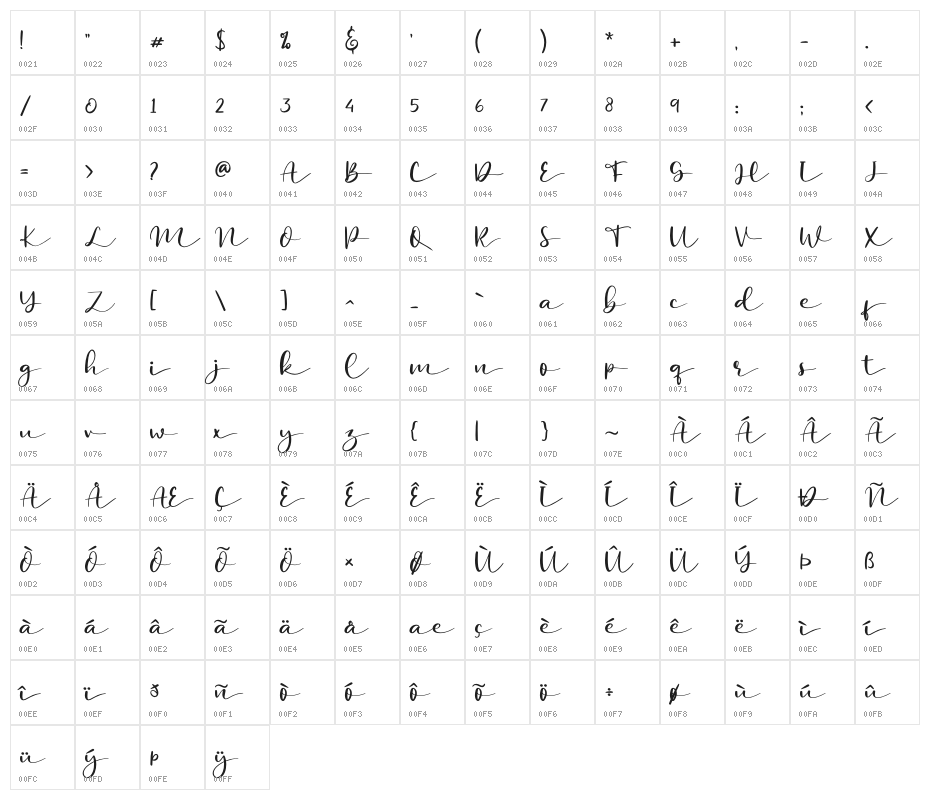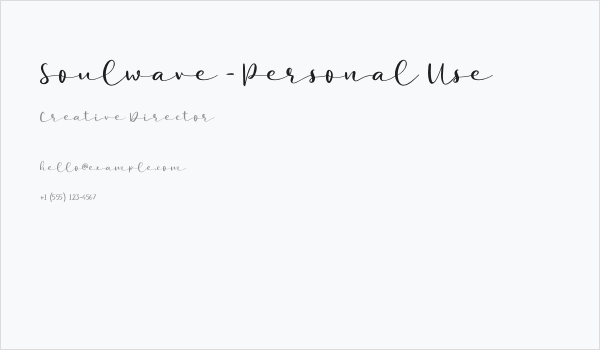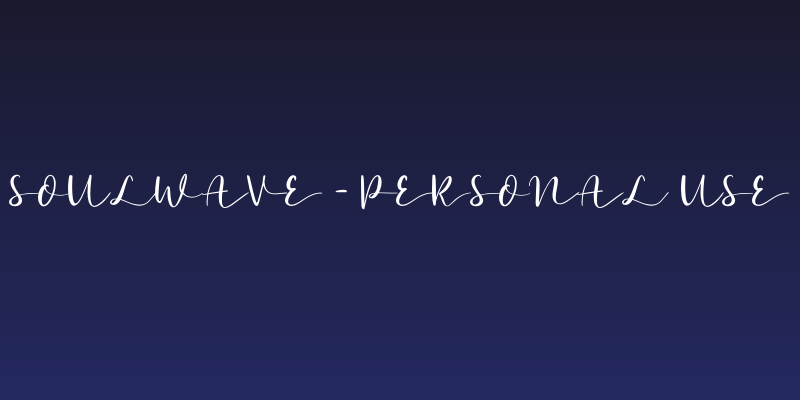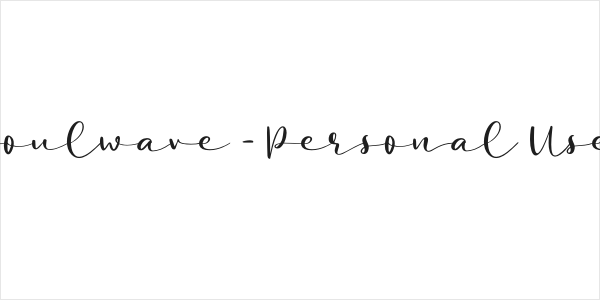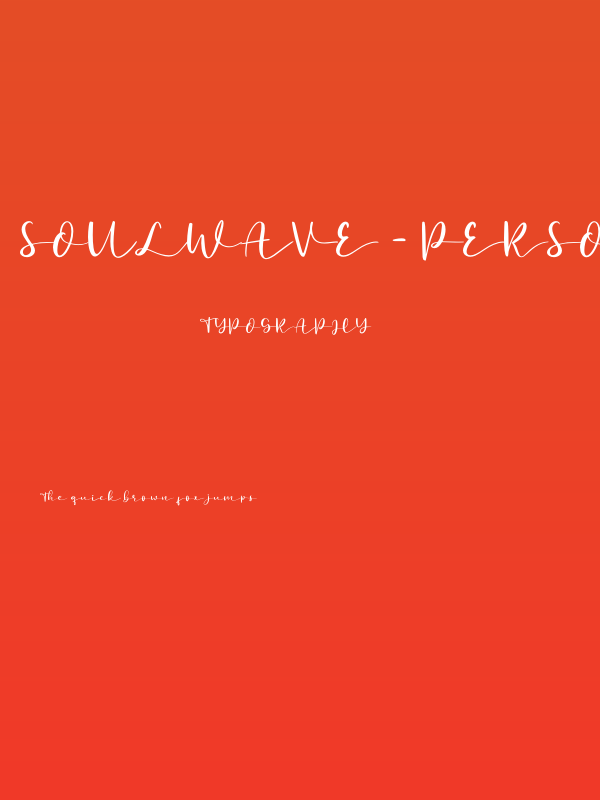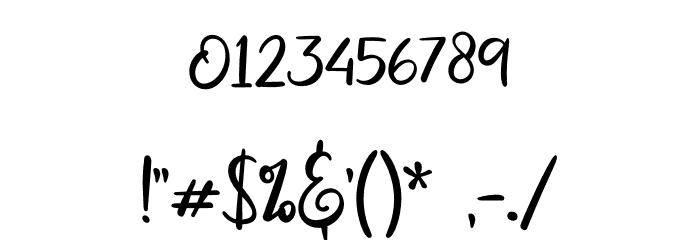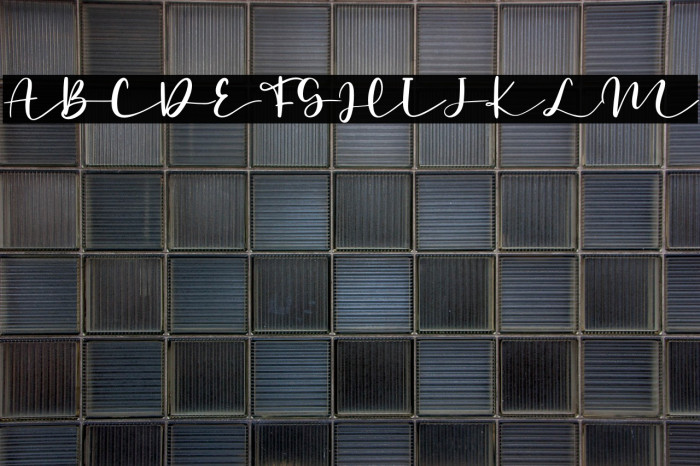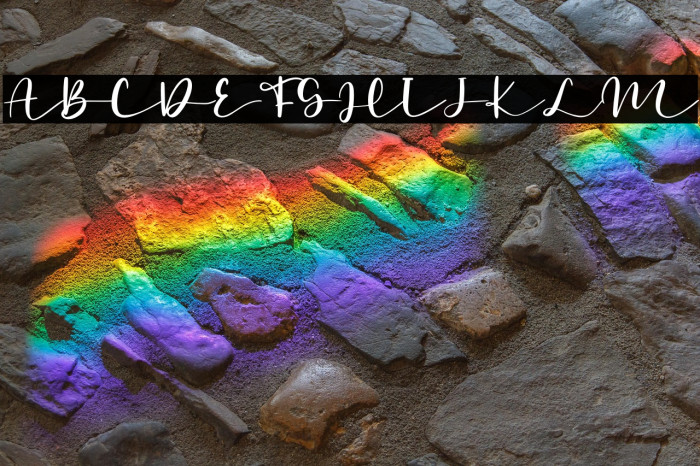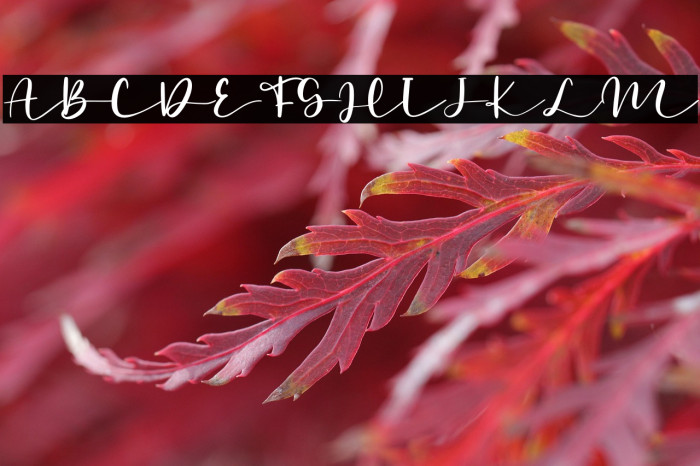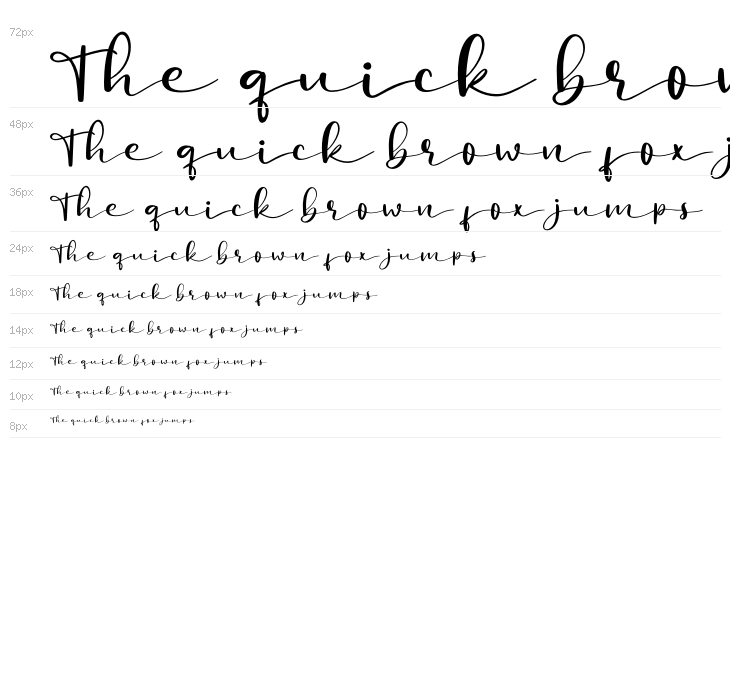
Soulwave - Personal Use Font
Soulwave - Personal Use Description
This font features a flowing, cursive style with elegant loops and swirls, reminiscent of handwritten calligraphy. The uppercase letters are bold and expressive, with dramatic flourishes that add a touch of sophistication. The lowercase letters maintain a consistent flow, creating a harmonious and connected look. Numbers and special characters are designed with the same attention to detail, ensuring a cohesive appearance across all elements. The overall design is both artistic and legible, making it suitable for a variety of creative applications.